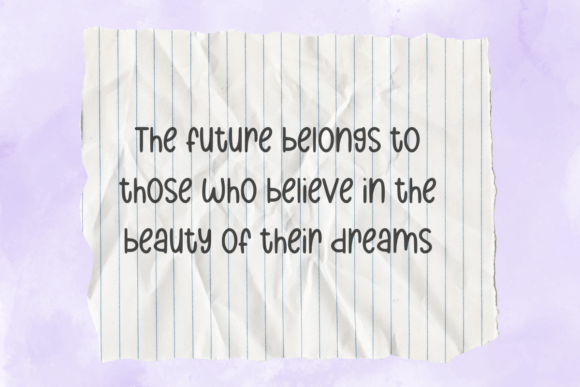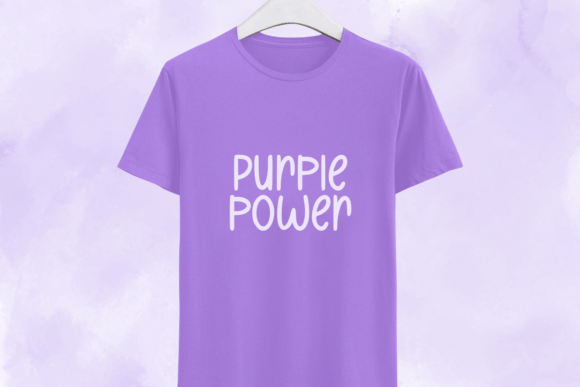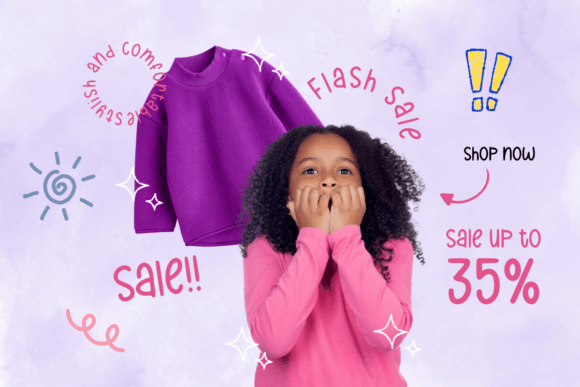
Christmas Seasons Font
The Christmas Seasons font is a playful, cute sans-serif font, perfect for holiday-themed designs. Its friendly, rounded style brings a festive charm suitable for Christmas cards, holiday invitations, and cheerful seasonal decor. With a smooth flow and soft character shapes, it adds a touch of warmth to any project, making it ideal for family gatherings, holiday greetings, and kid-friendly designs.